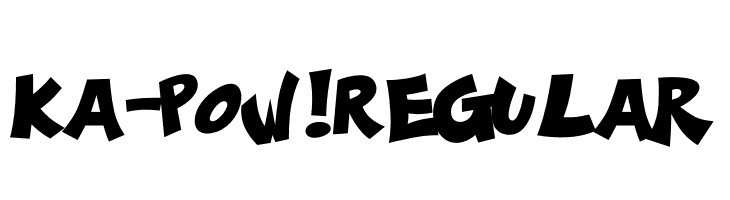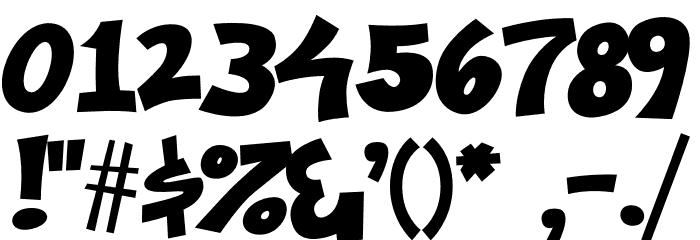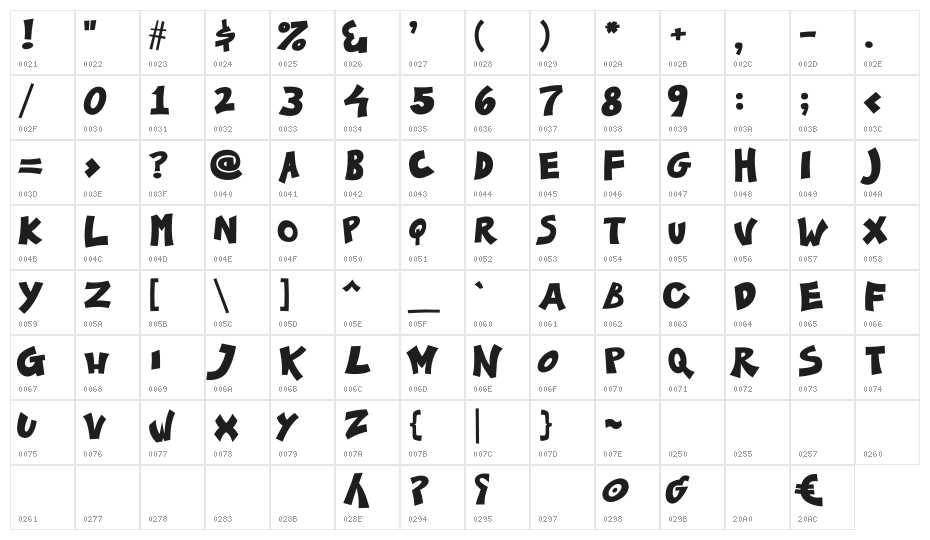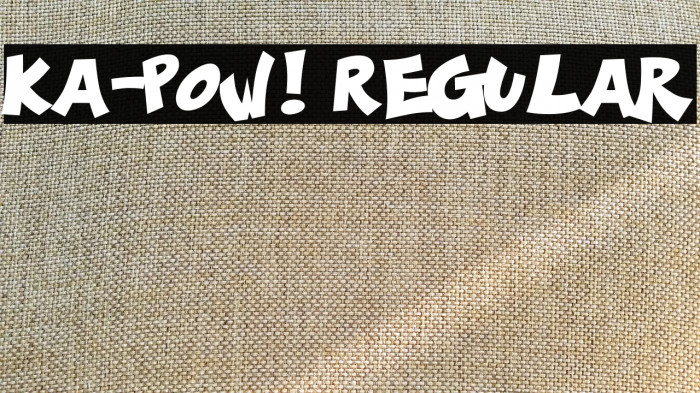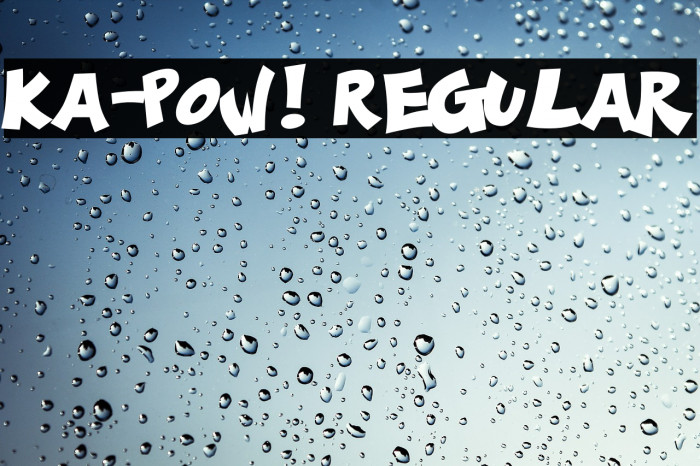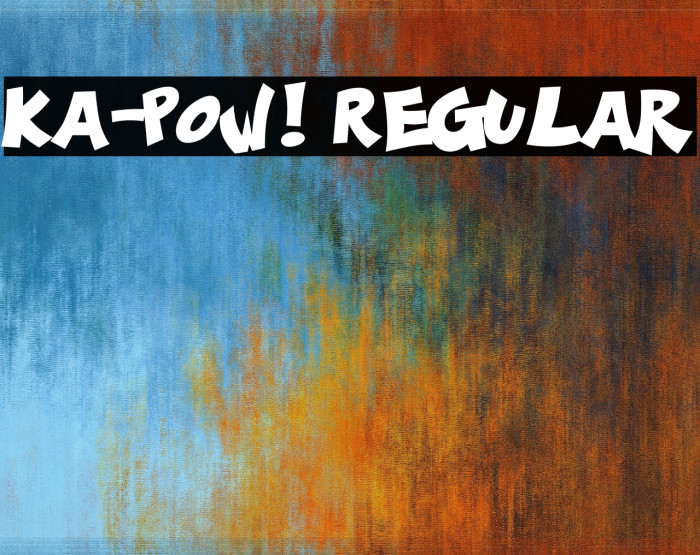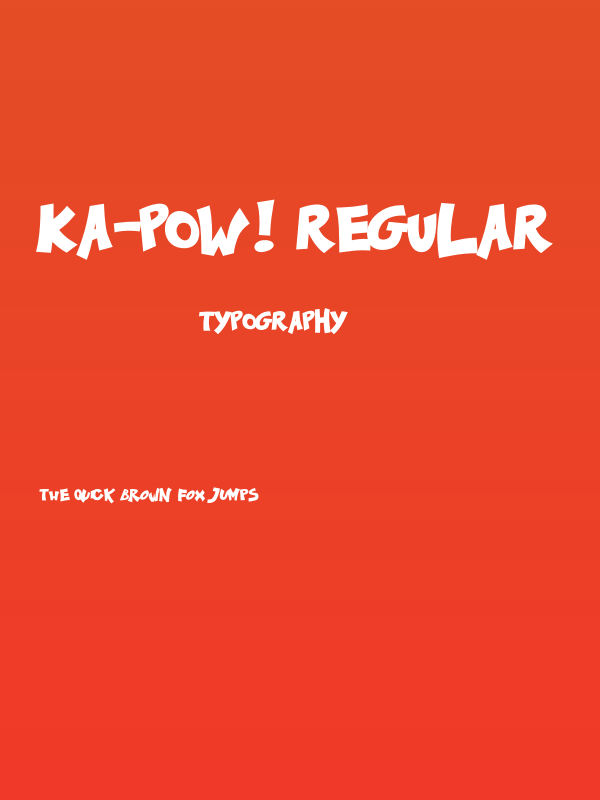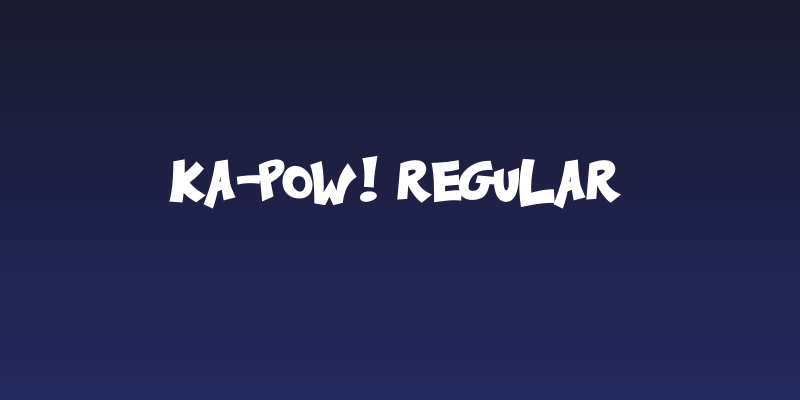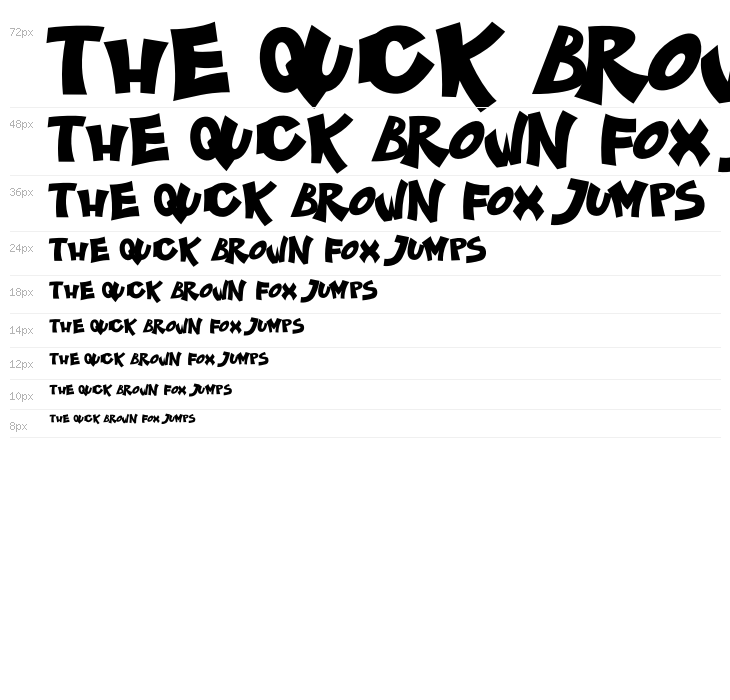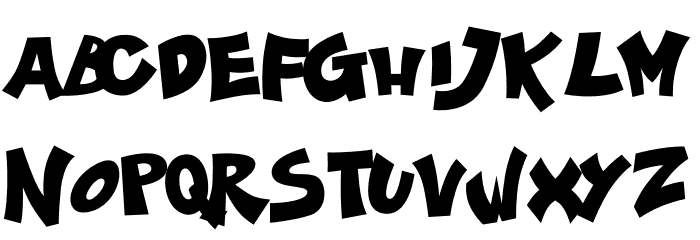
Ka-Pow! Regular Font
This font features a bold, dynamic style with exaggerated curves and angles, reminiscent of comic book lettering. The characters are playful and energetic, with a sense of movement that captures attention. The uppercase and lowercase letters maintain a consistent style, while the numbers and special characters complement the overall aesthetic. The strokes are thick and uniform, contributing to a strong visual impact. This font is ideal for projects that require a fun and lively appearance, such as posters, comic strips, or children's book covers.
A bold, comic-style font with dynamic curves and playful energy.
• Proposed Projects: Perfect for comic books, playful posters, children's book covers, and eye-catching headlines.
• Category: Decorative/Display
• Bold: Yes
• Italic: No
• Weight: Bold
• Width: Normal
• Character Spacing: Normal
• Contrast: Low
• Overall Style: Comic, Playful, Energetic
• Use Case: Headlines, Posters, Comics